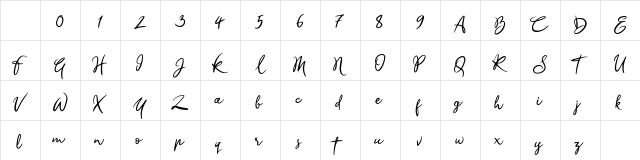
Sandra Belhock is a composed and adaptable typeface that performs quietly and consistently across a wide range of design contexts.
Pro Tip: Use Sandra Belhock in both headline and body roles to test its range before committing to a single application.